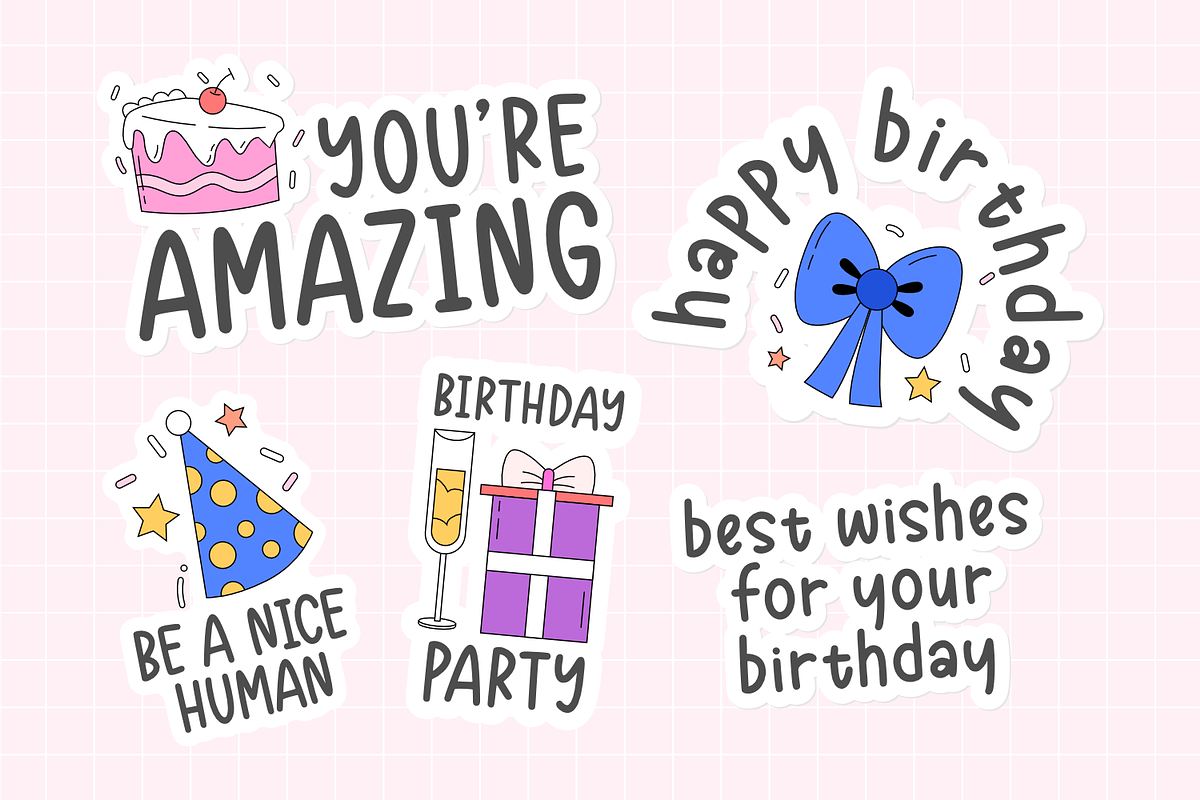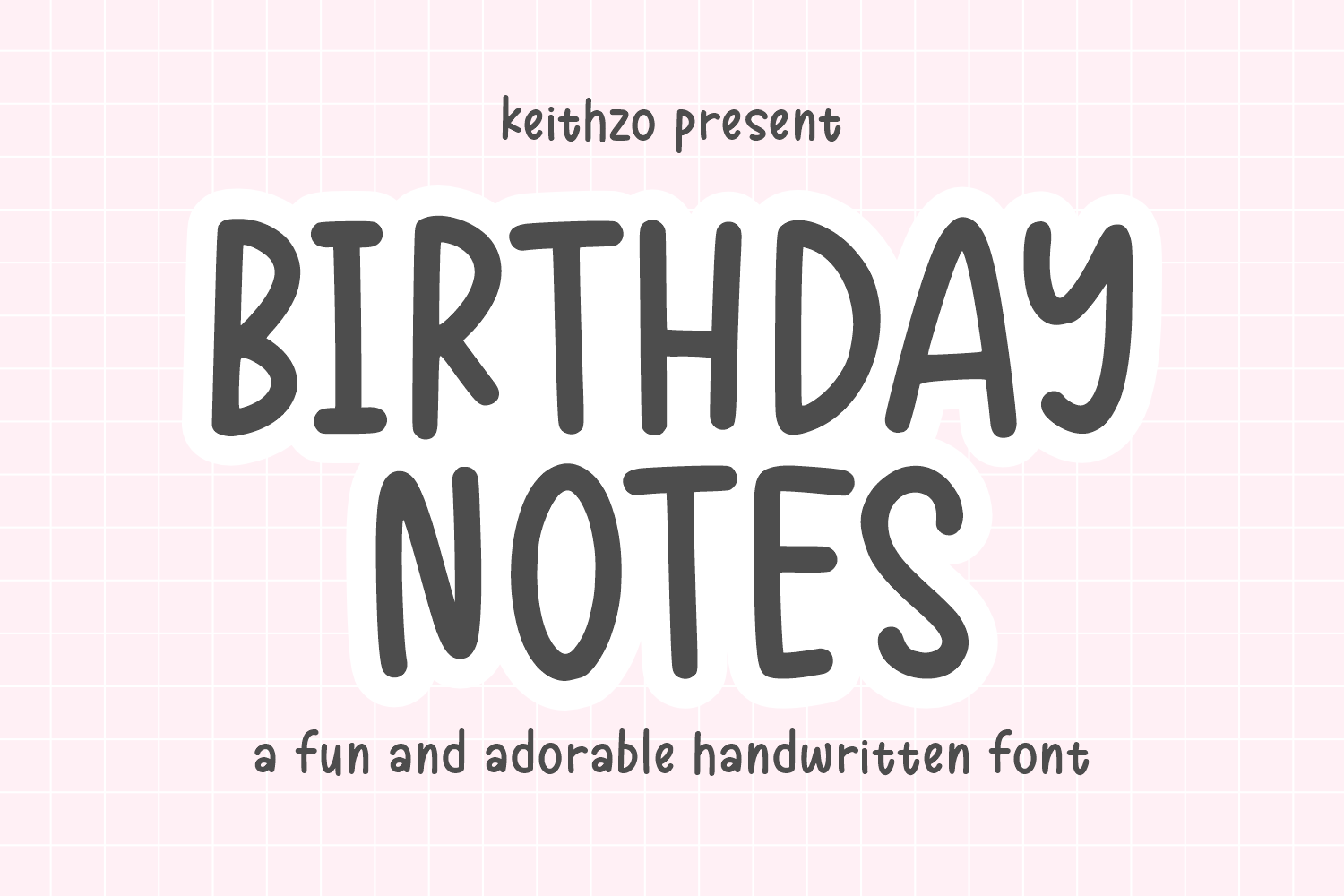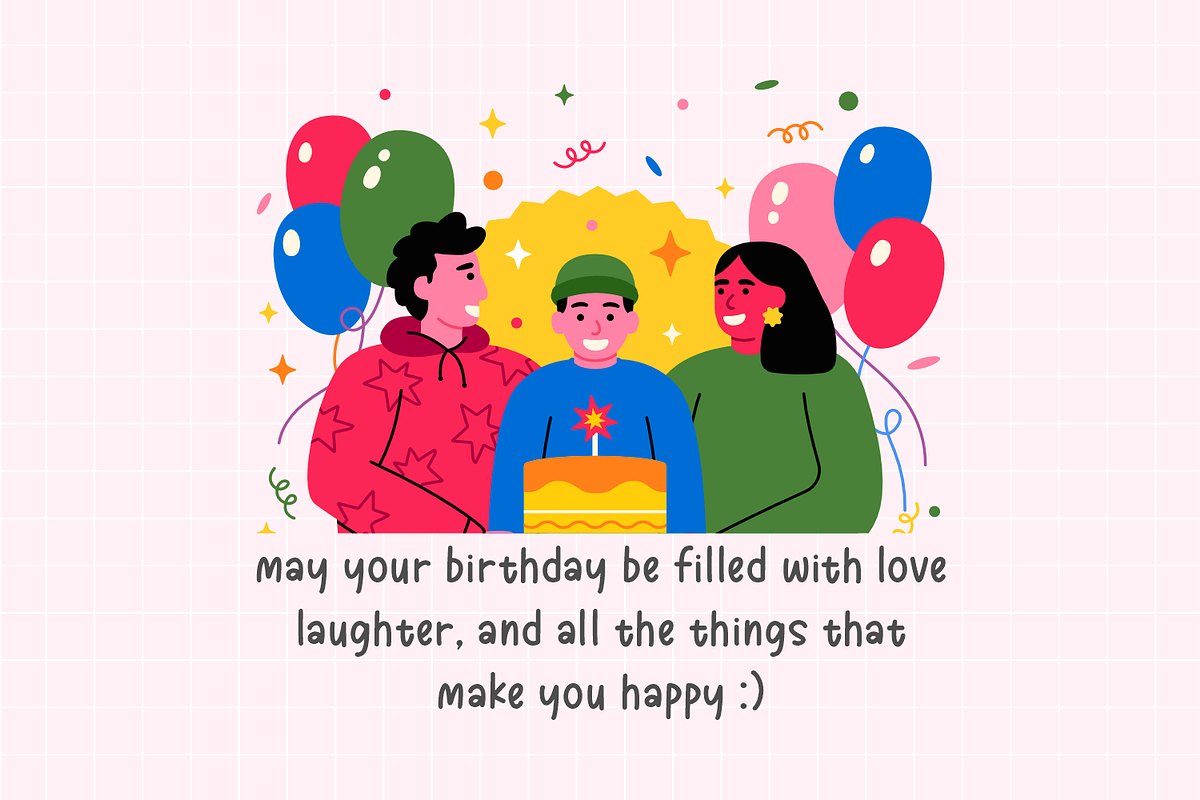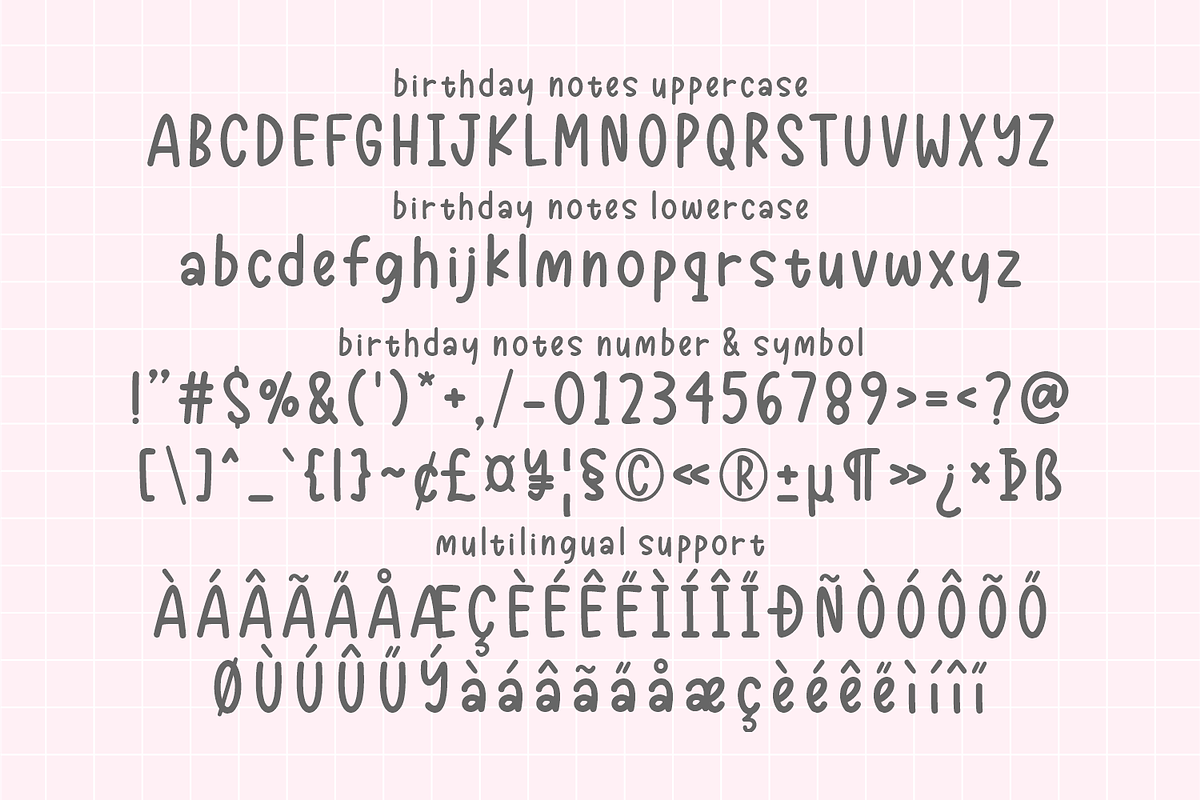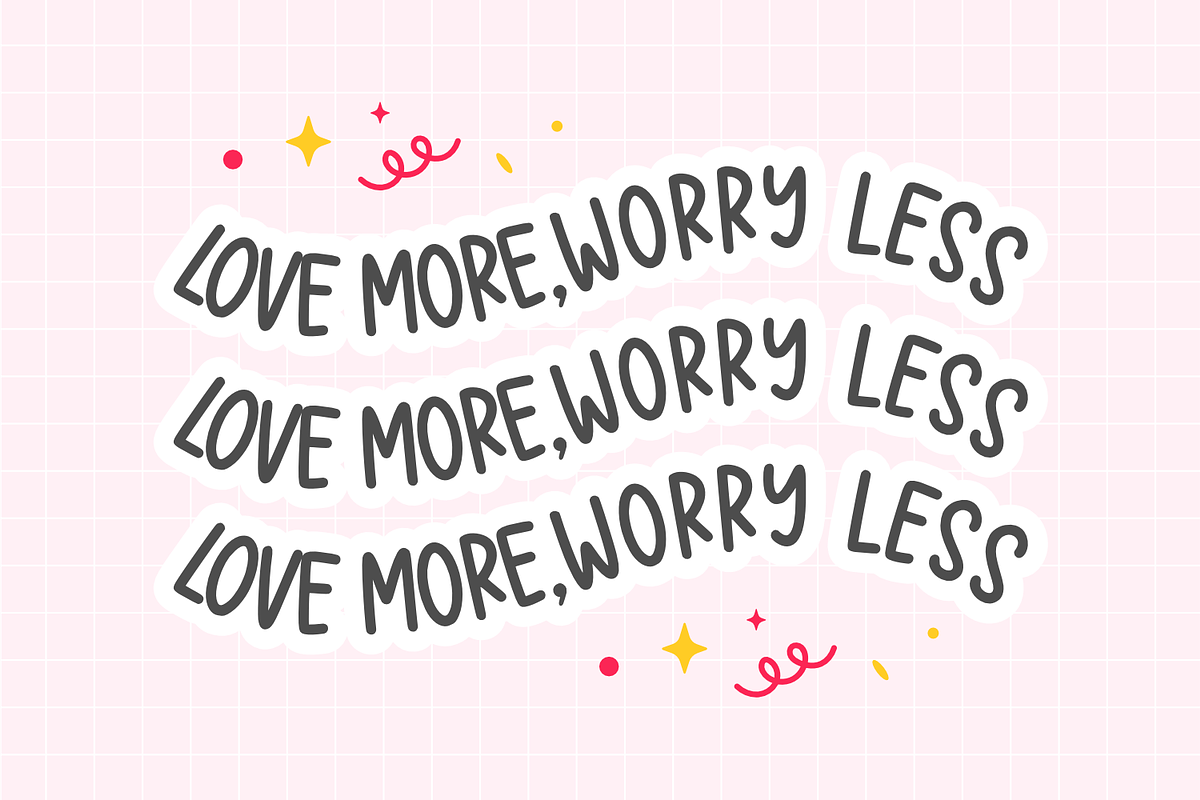
Birthday Notes - Playful Font
Experience the joy of designing with Birthday Notes, a delightful display font that embodies fun and playfulness. This charismatic font, with its enchanting style, is simply ideal for crafting charming birthday cards, inviting party invitations, and celebratory artifacts. Let Birthday Notes infuse a cascade of color and sparkle of happiness into your creative ventures!